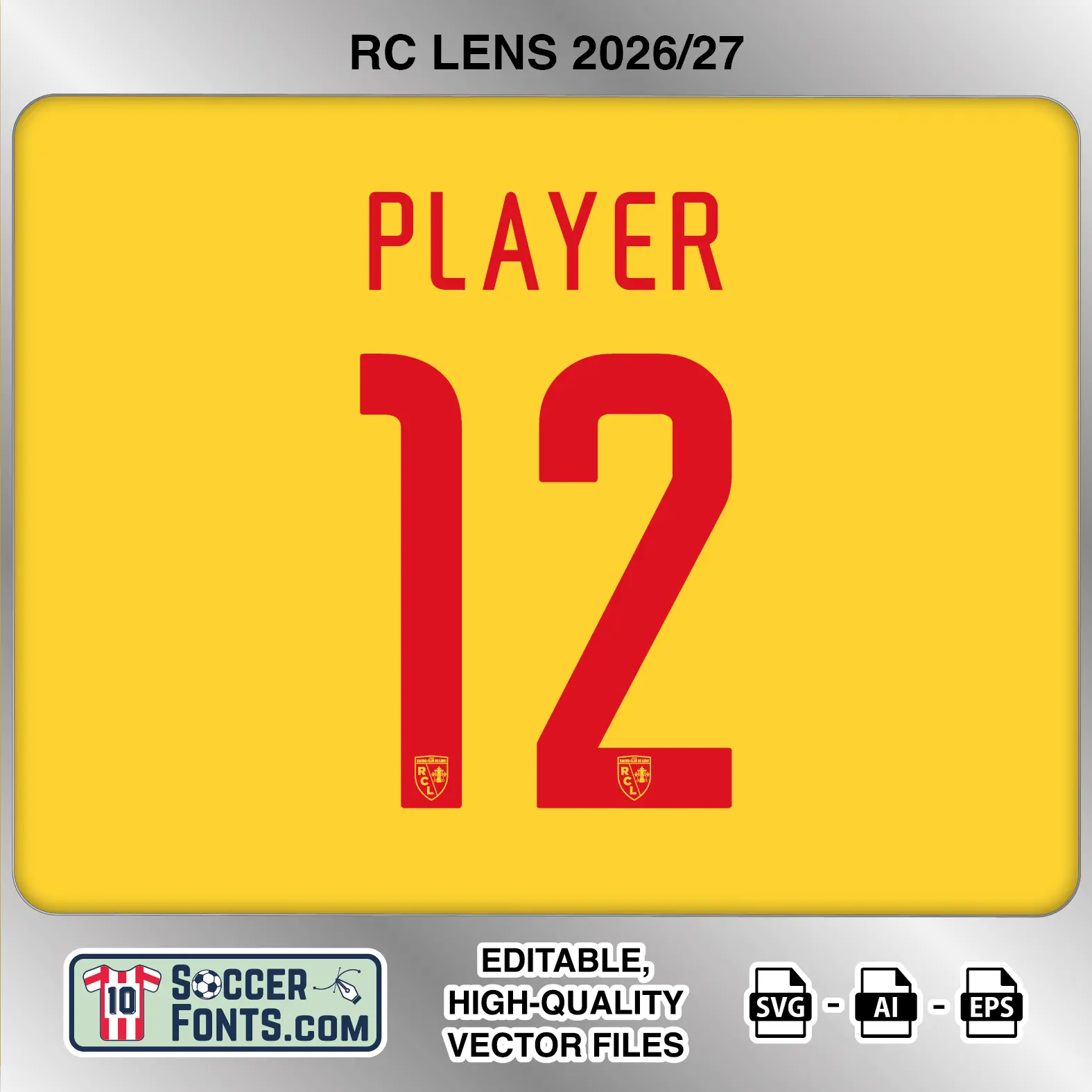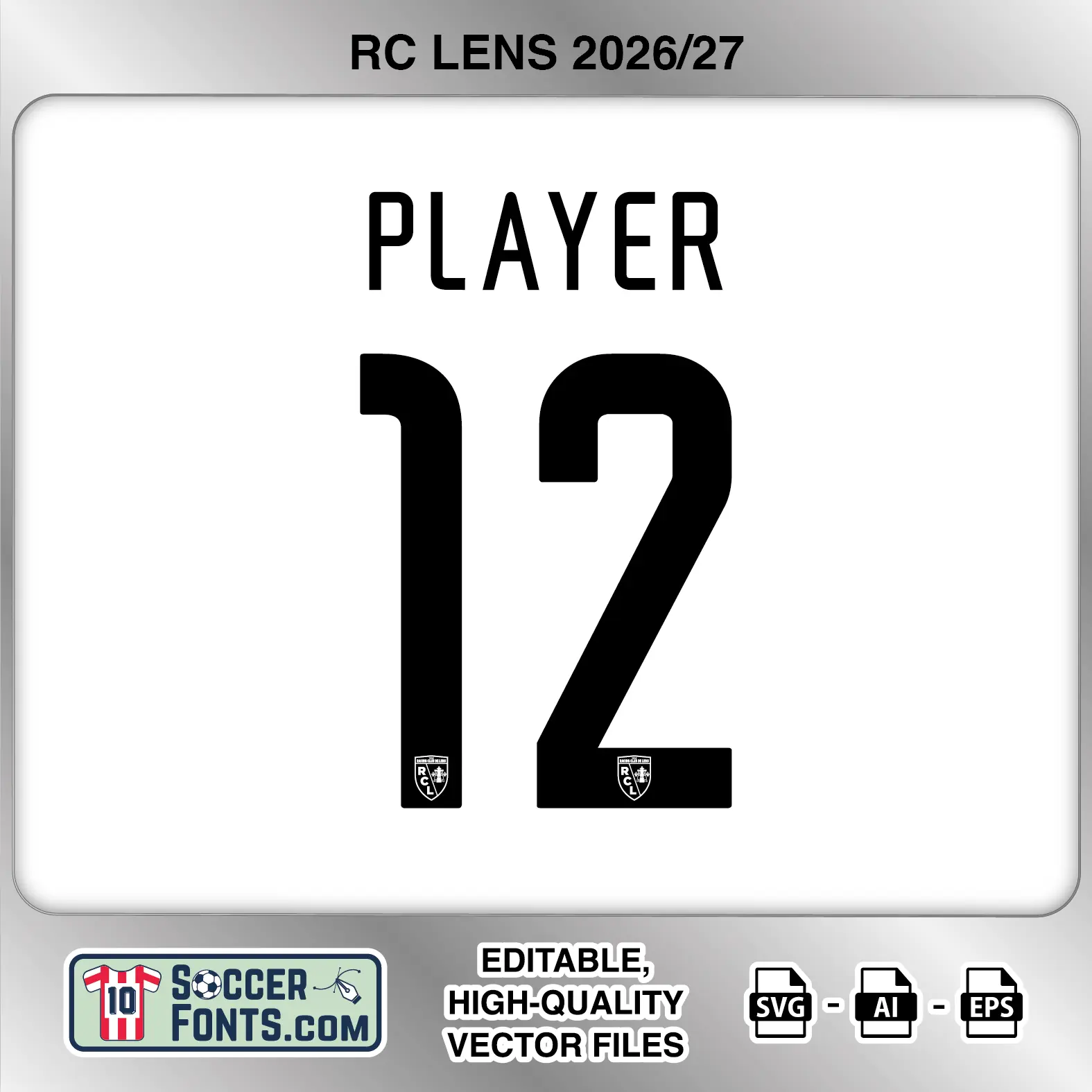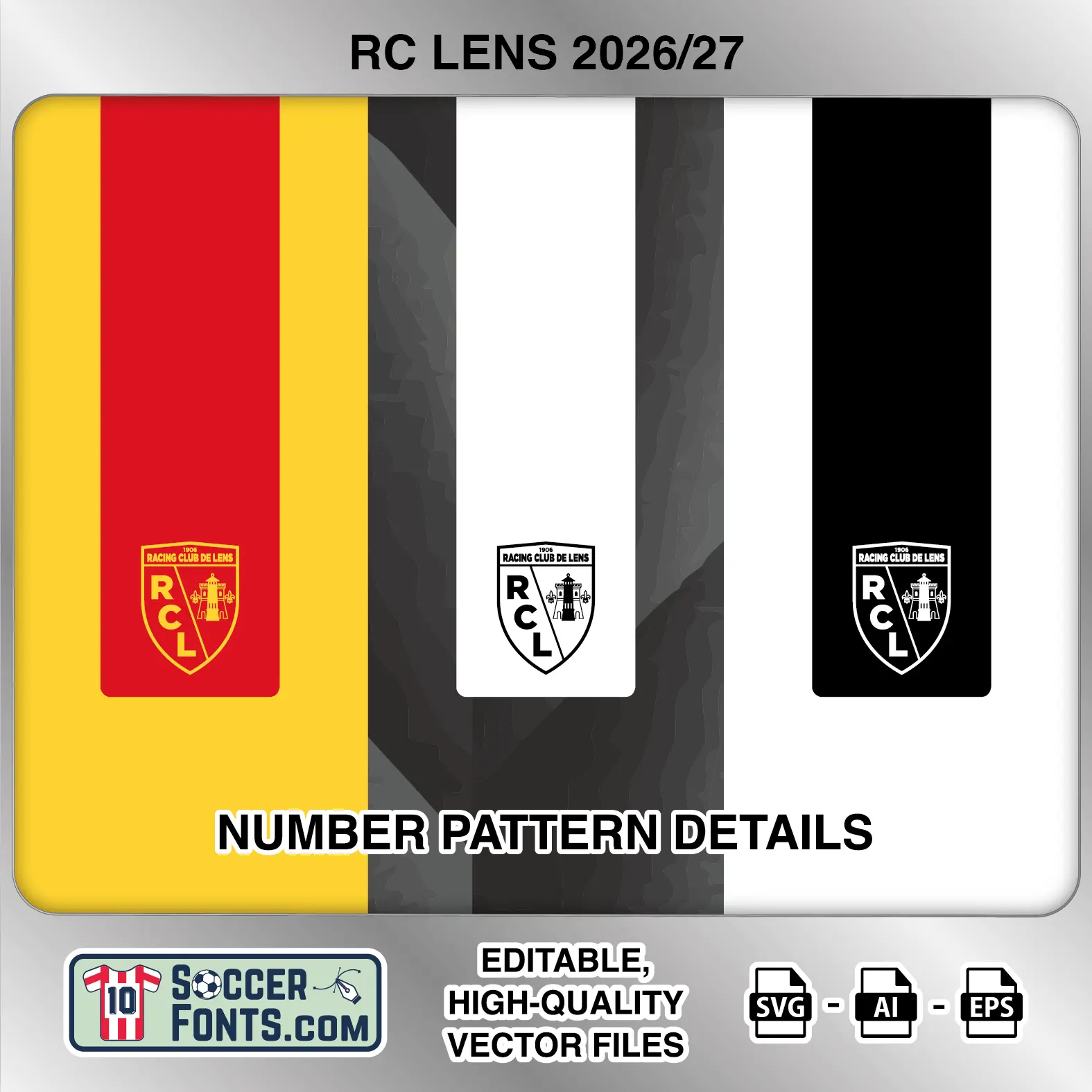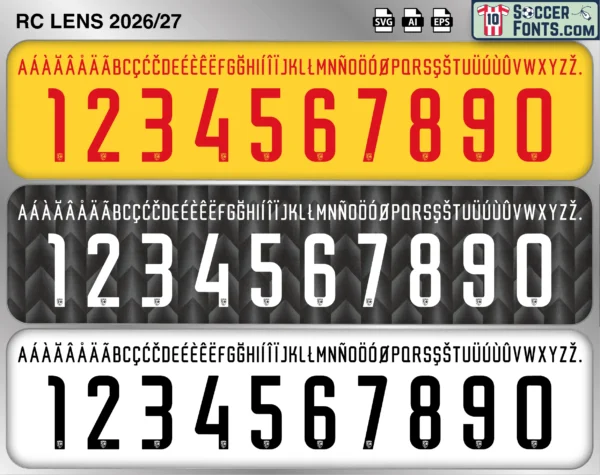
About RC Lens 2026-27 Font
Download RC Lens 2026-27 font, an editable soccer jersey lettering design in vector format inspired by the RC Lens kit style used during the 2026-27 football season. This complete collection includes the home, away and third shirt lettering treatments used for the club’s UEFA Champions League campaign. This football font artwork is prepared for football shirt recreations, custom jersey projects, football kit mockups and sports graphic design workflows.
Visual Identity of the Font Design :
The home, away and third versions share the same tall, condensed lettering and number structure while adapting the colors to each shirt. The home treatment uses red lettering and numbers, the away version uses white, and the third treatment uses black. Player names are narrow uppercase characters with generous vertical proportions. The numbers are substantially heavier, combining straight vertical strokes with smoothly rounded corners and compact counters. Each numeral includes a small RC Lens crest positioned near the lower edge. The character set also contains an extensive selection of accented uppercase letters for international player names.
Context of 2026-27 Season for RC Lens :
RC Lens entered 2026-27 after an exceptional previous campaign that brought a second-place finish in Ligue 1 and qualification for the UEFA Champions League. The RC Lens 2026-27 Font therefore belongs to a significant European season for Les Sang et Or, with Dino Toppmöller leading the team and Florian Thauvin serving as captain. Lens returned to the Champions League league phase for their fourth season in the competition, facing a varied European schedule that includes Sporting CP, Club Brugge, Como, RB Leipzig, Bodø/Glimt, Manchester City and Liverpool. The RC Lens 2026-27 Font appears across the home, away and third kit treatments prepared for this Champions League campaign, giving the three shirts a consistent player-name and number identity despite their contrasting colors. For collectors and designers recreating this period of the club’s European history, the RC Lens 2026-27 Font represents the lettering associated with Lens’ return to Europe’s leading club competition.
This editable football lettering artwork is suitable for football shirt customization, soccer jersey mockups, kit recreations, fan-made football projects and sports design workflows.
RC Lens 2026-27 football shirt font showing alphabet letters and jersey numbers